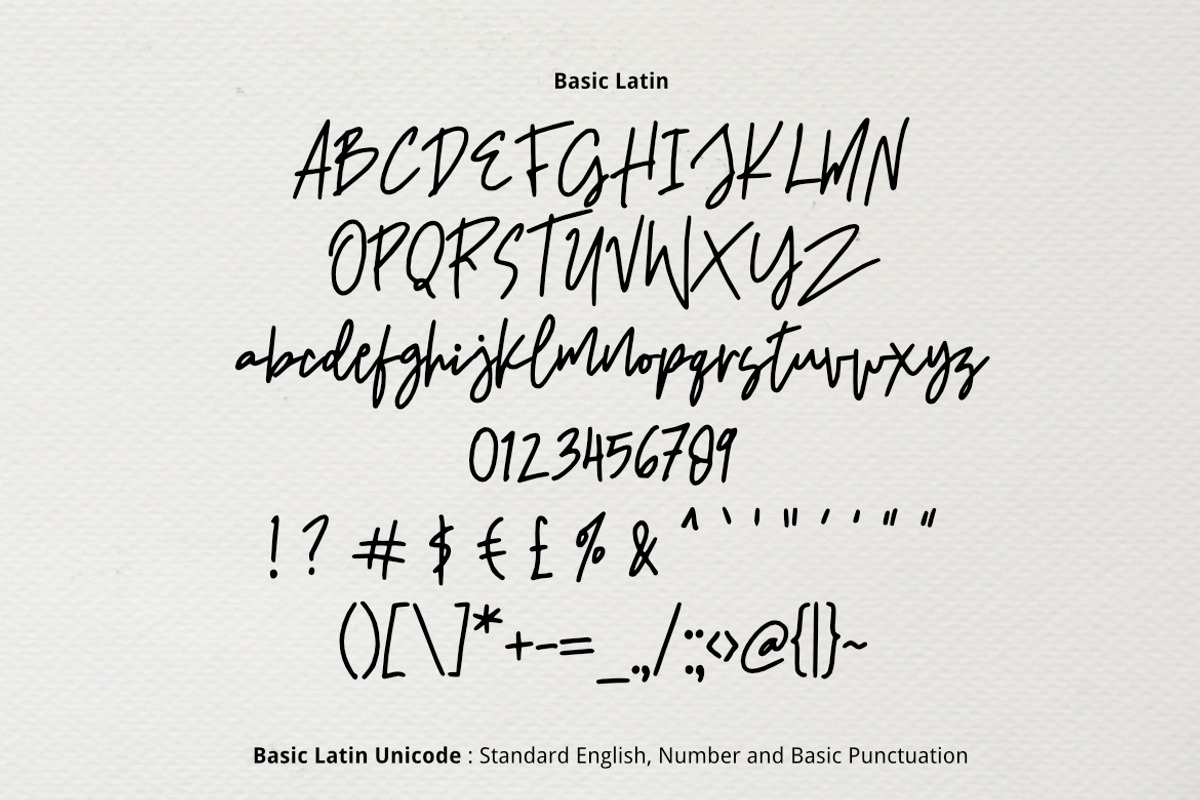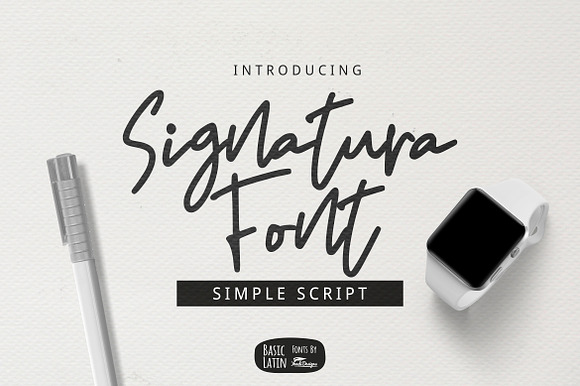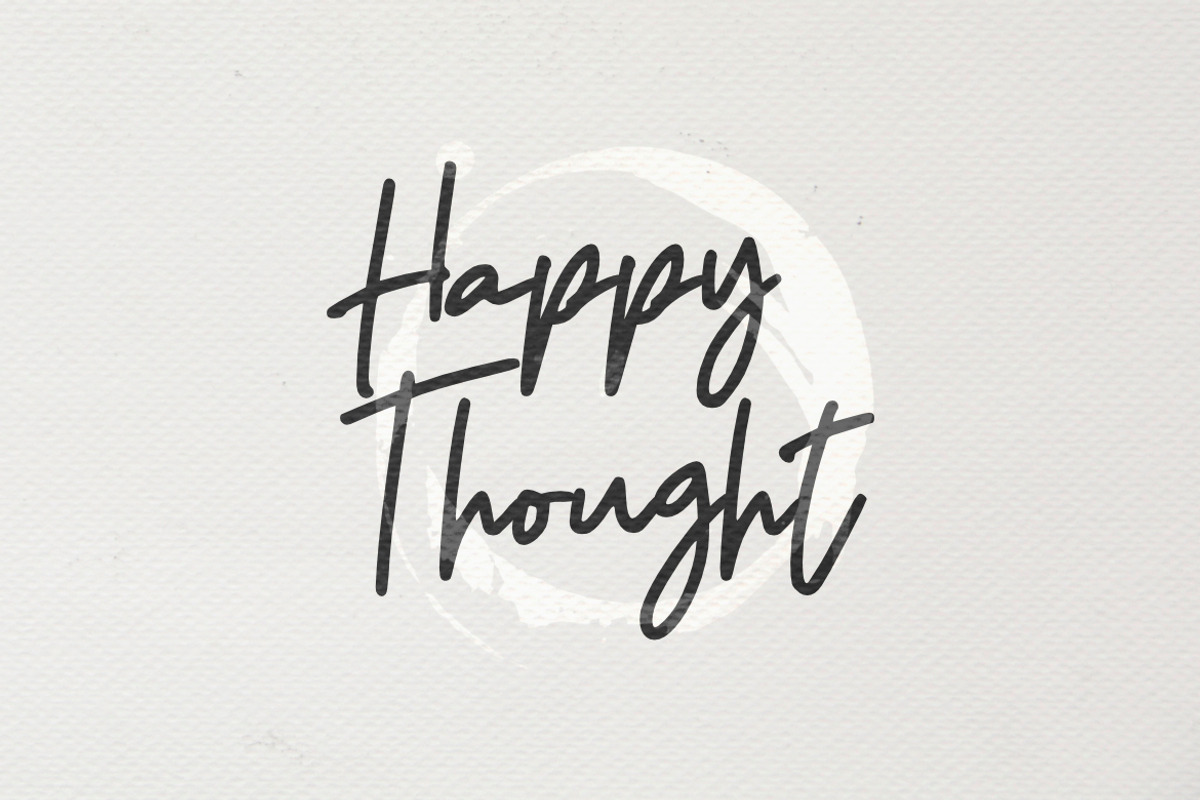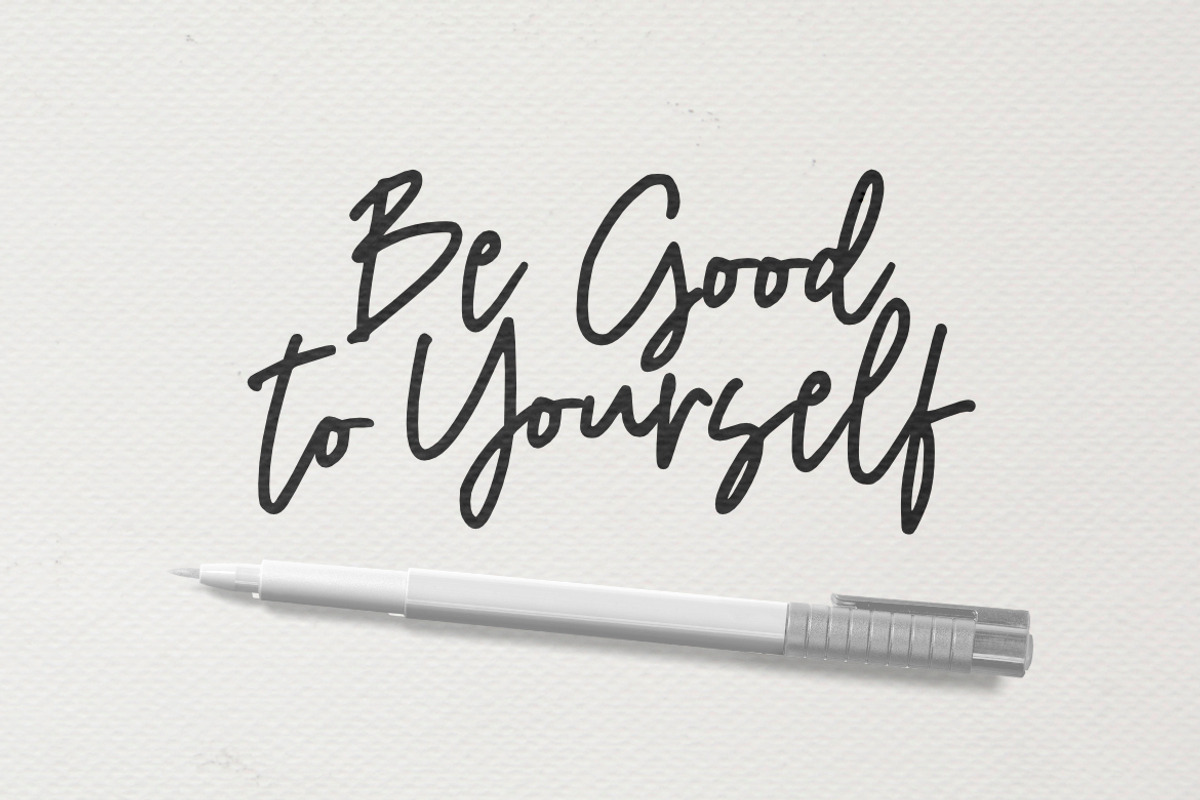
Signatura Font
Signatura Script Font
Signatura font is simple beautiful multipurpose handmade font , suitable for many project children book, quotes, logo , heading , title etc.
Signatura Font by YandiDesigns fits naturally into Branding, posters, packaging, typography.